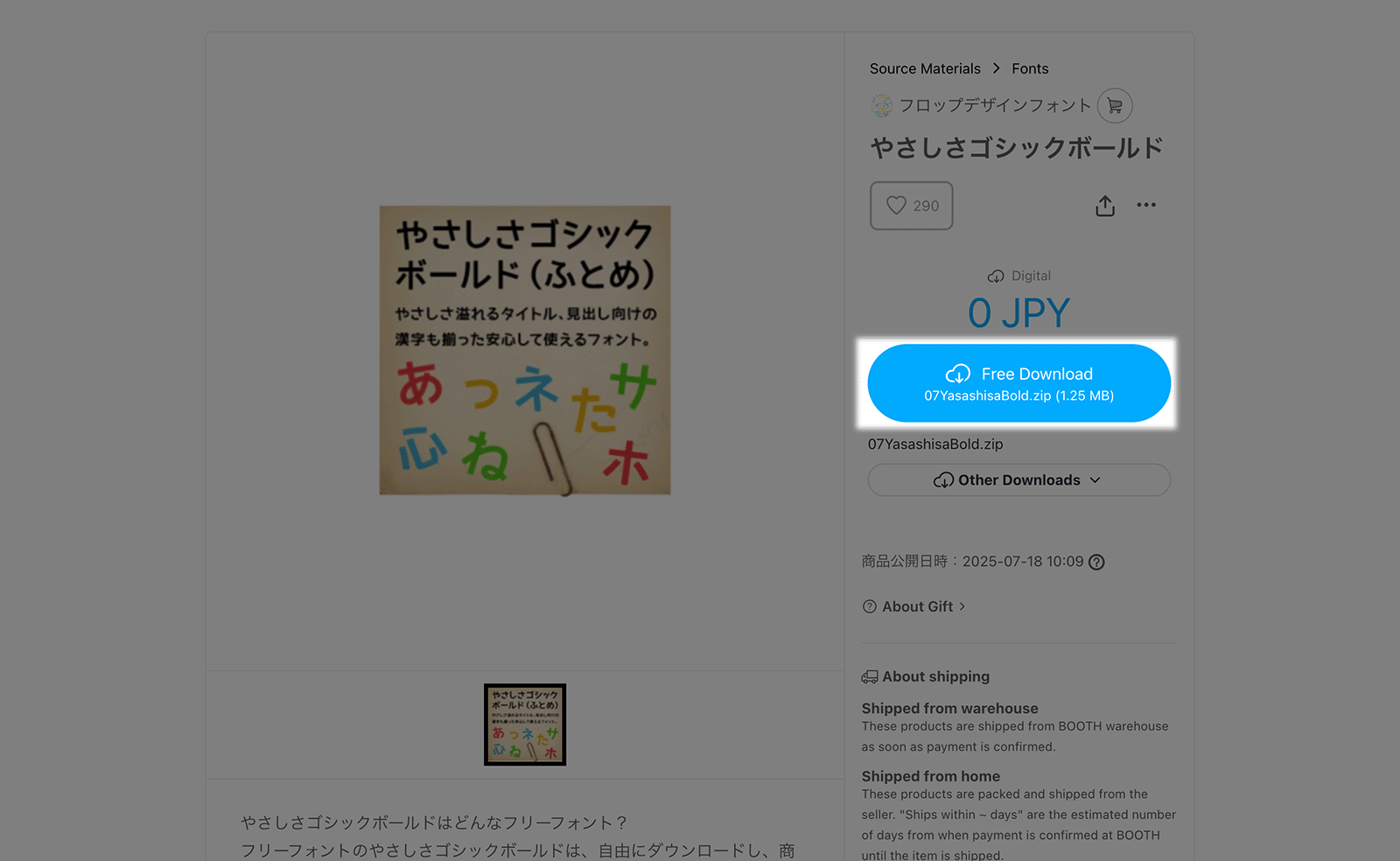
Yasashisa Gothic Bold (やさしさゴシックボールド)
Yasashisa Gothic Bold (やさしさゴシックボールド) is the free bold Gothic style font with an elegant touch. It has all the common characters found in unicode Japanese fonts. It’s possible to use this for commercial and non-commercial projects. You can pair this font with the regular weight version.
- Hiragana and Katakana
- Kanji
- Alphanumeric
- Symbols and Punctuation